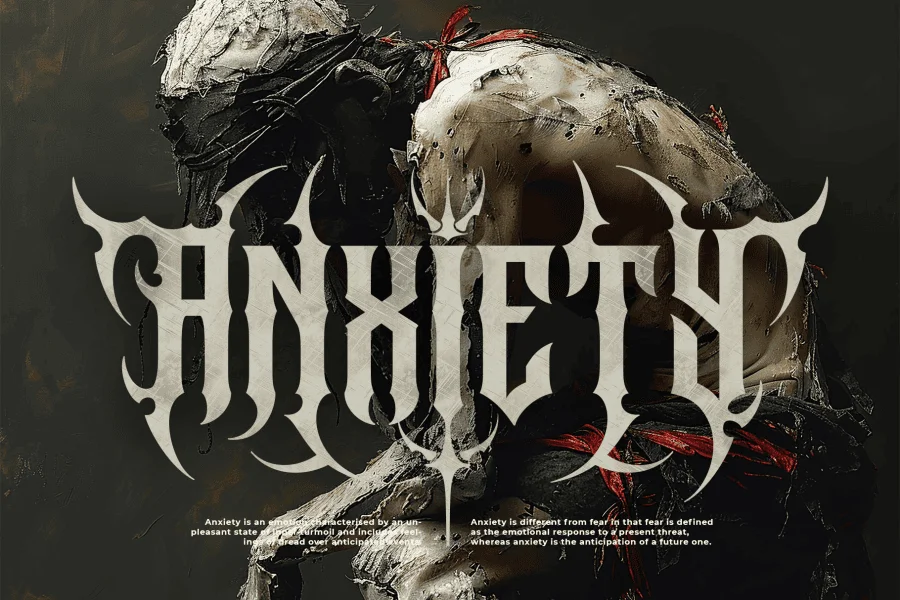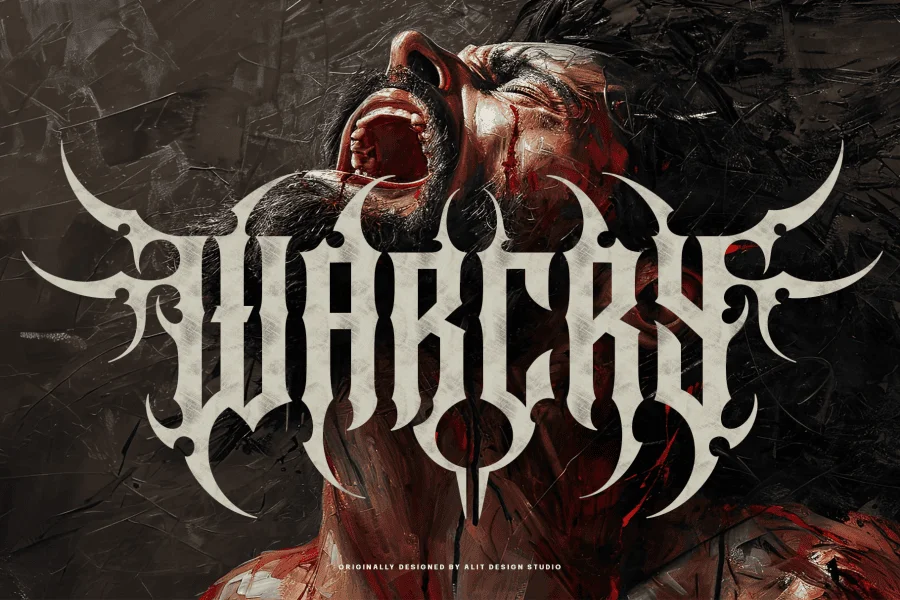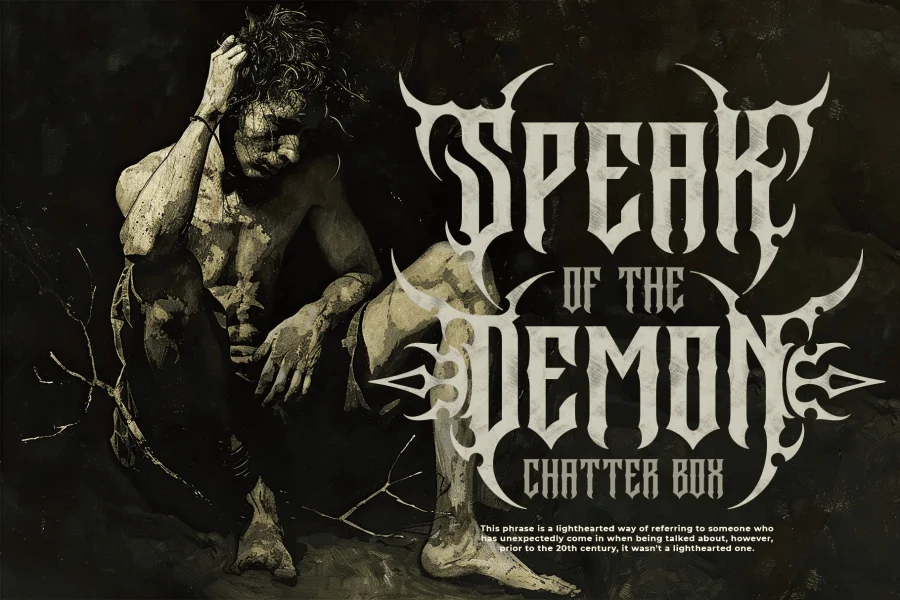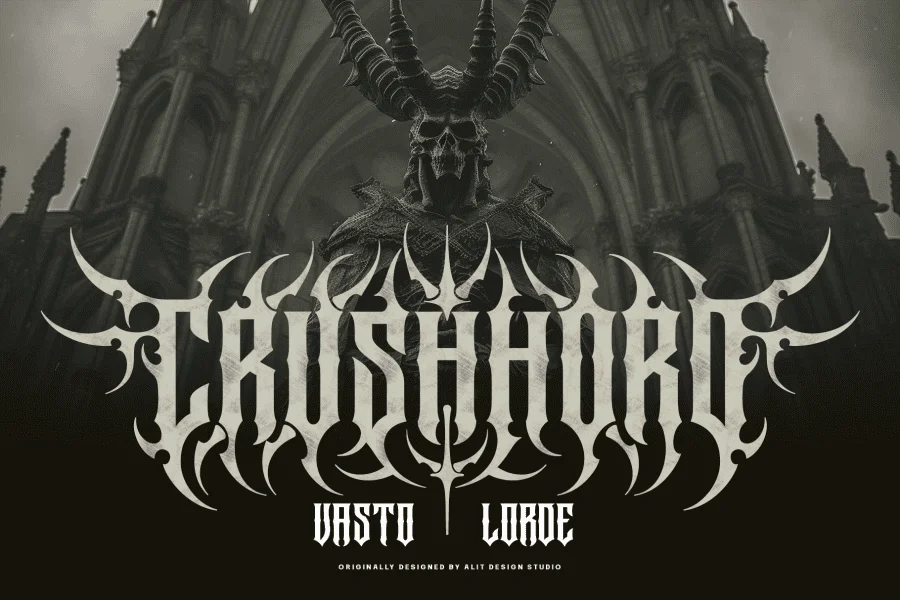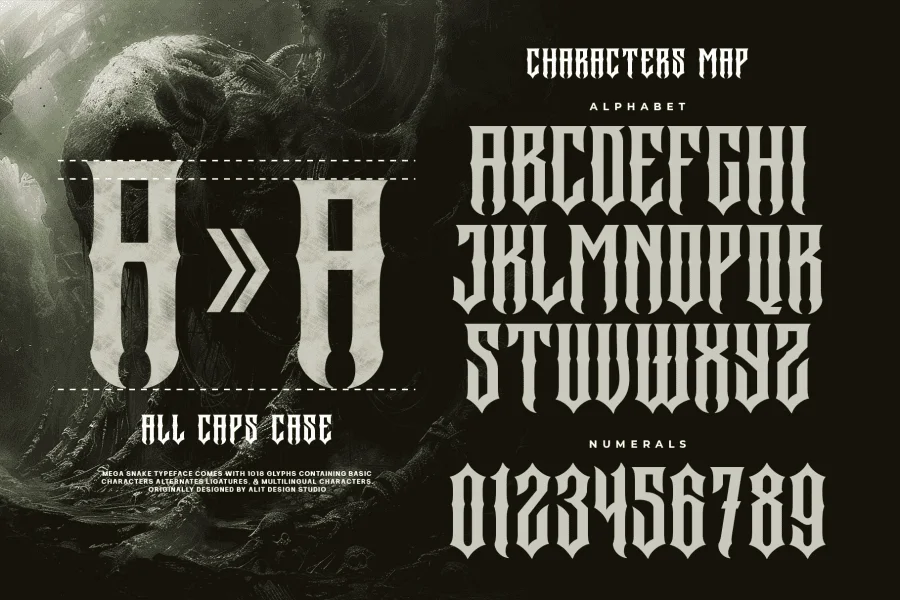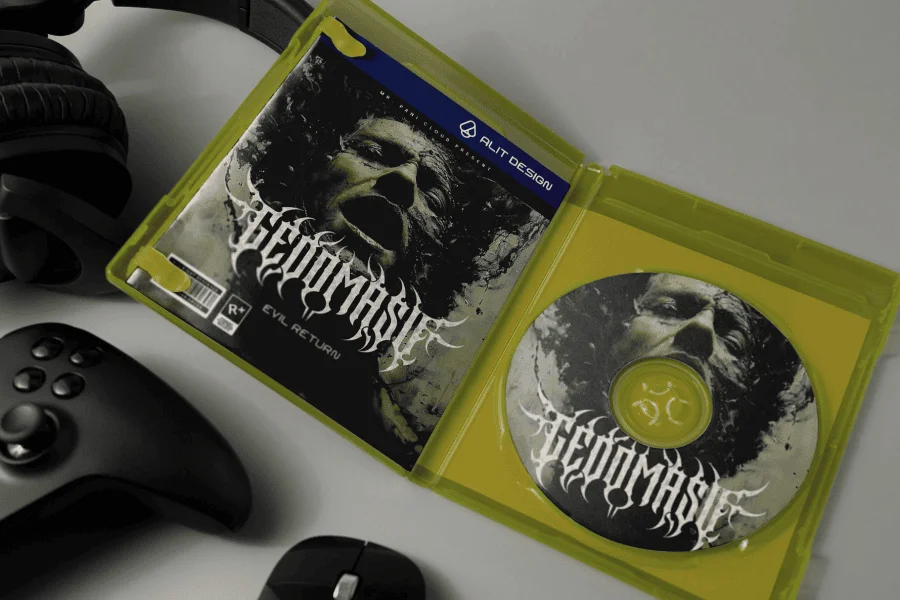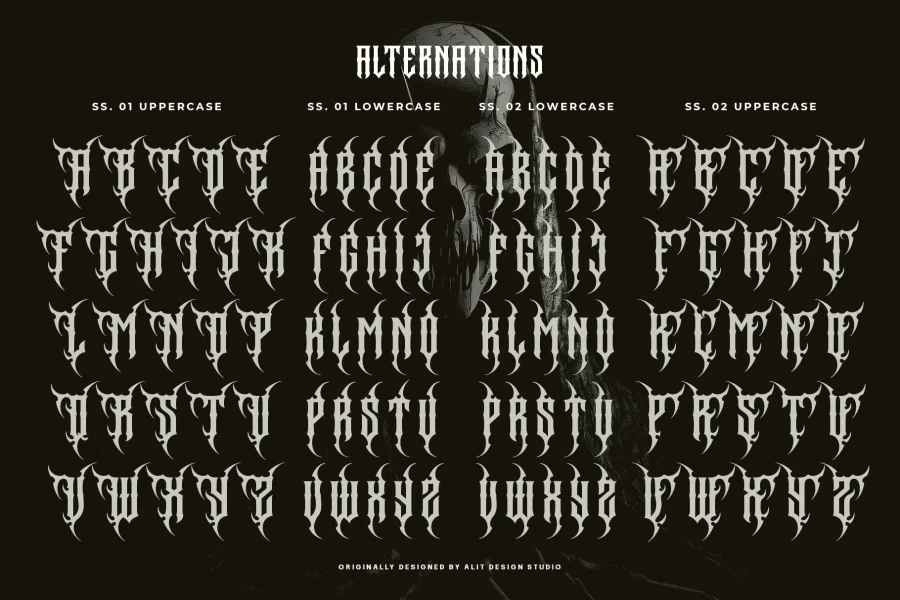
Megasord Typeface: Unleash the Fierce Power of Modern Death Metal Design
Enter a world of untamed intensity with Megasord Typeface, a striking font inspired by the raw energy of modern death metal. Designed to embody ferocity, mystery, and darkness, this typeface channels the essence of tribal shapes, demonic horns, wings, and hellish eyes. It’s the perfect choice for those looking to create designs that demand attention and exude a cruel yet captivating aura.